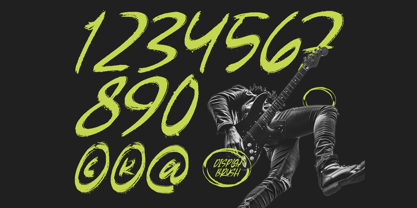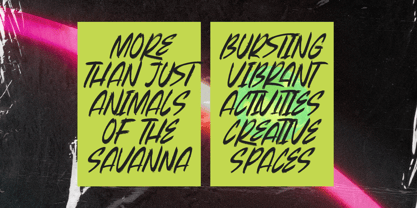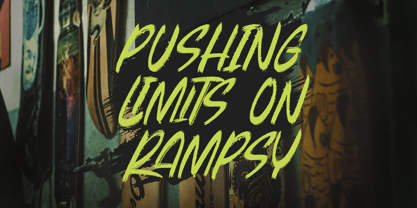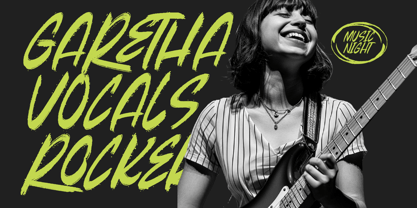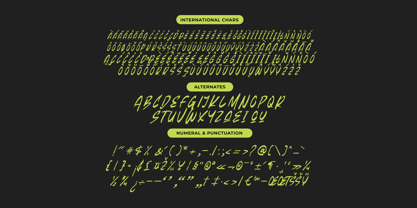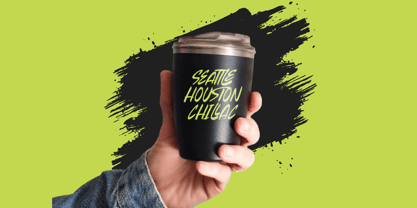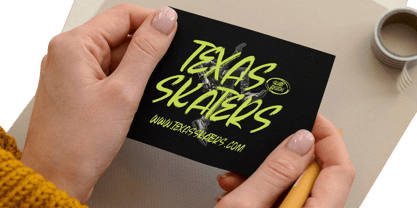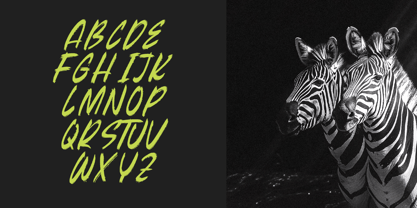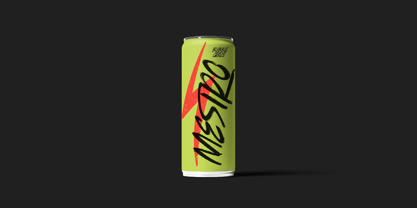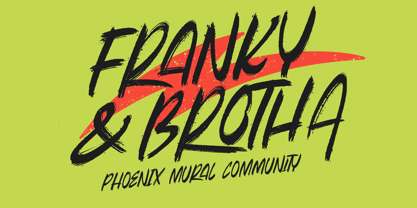
Beasty Strength
by Letterena Studios
The Beasty Strength Font Family was designed by Heru Utama Putra and published by Letterena Studios. Beasty Strength contains 2 styles and family package options.
Beasty Strength - Display Brush Font , from Letterena, is a Luxury Script font, suitable for any projects such as: logos, branding projects, homeware designs, product packaging, mugs, quotes, posters, shopping bags, t-shirts, book covers, name card, invitation cards, greeting cards, label, photography, watermark, special events, and all your other luxury and beautiful projects that need a Luxury Script taste.